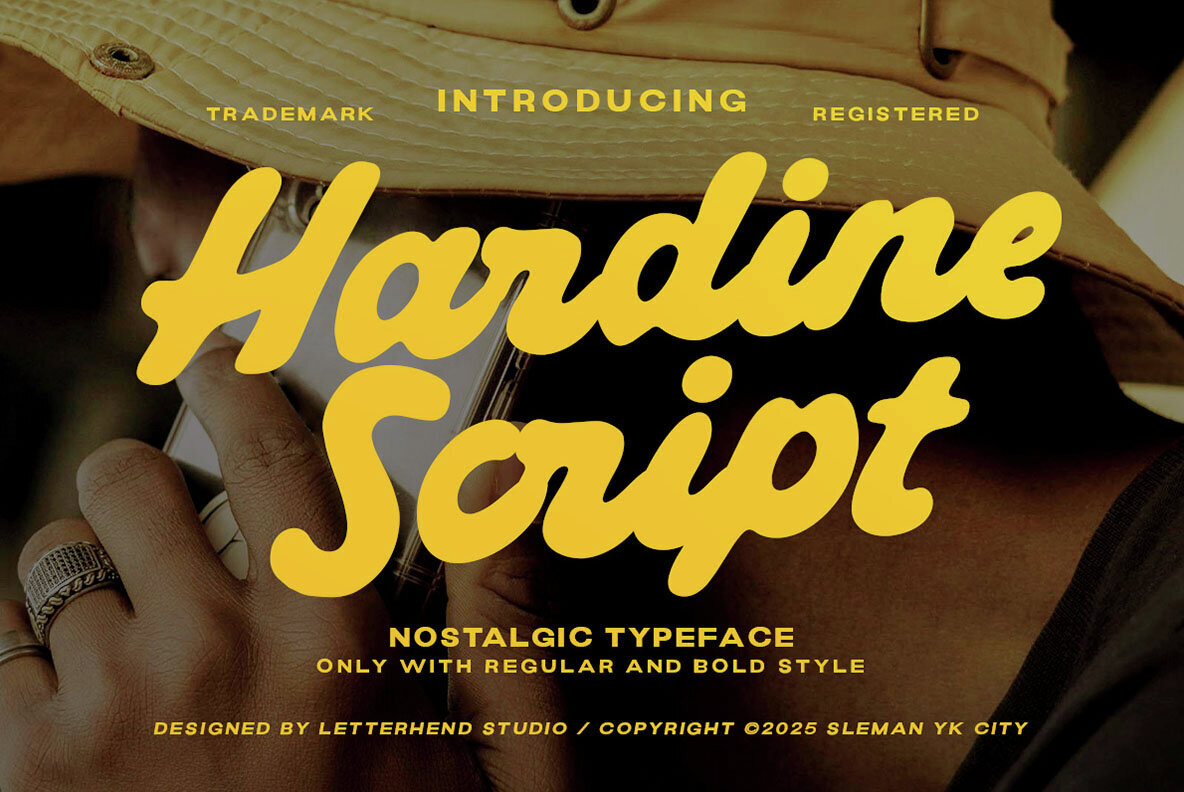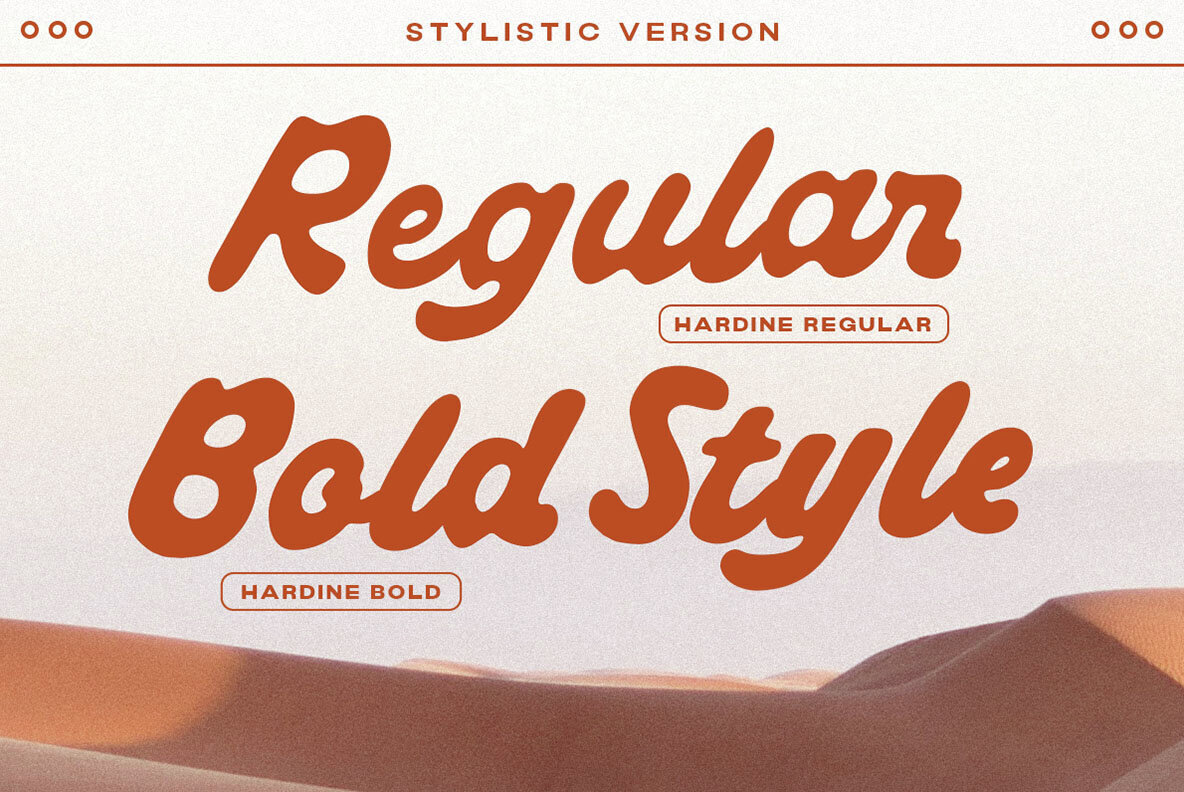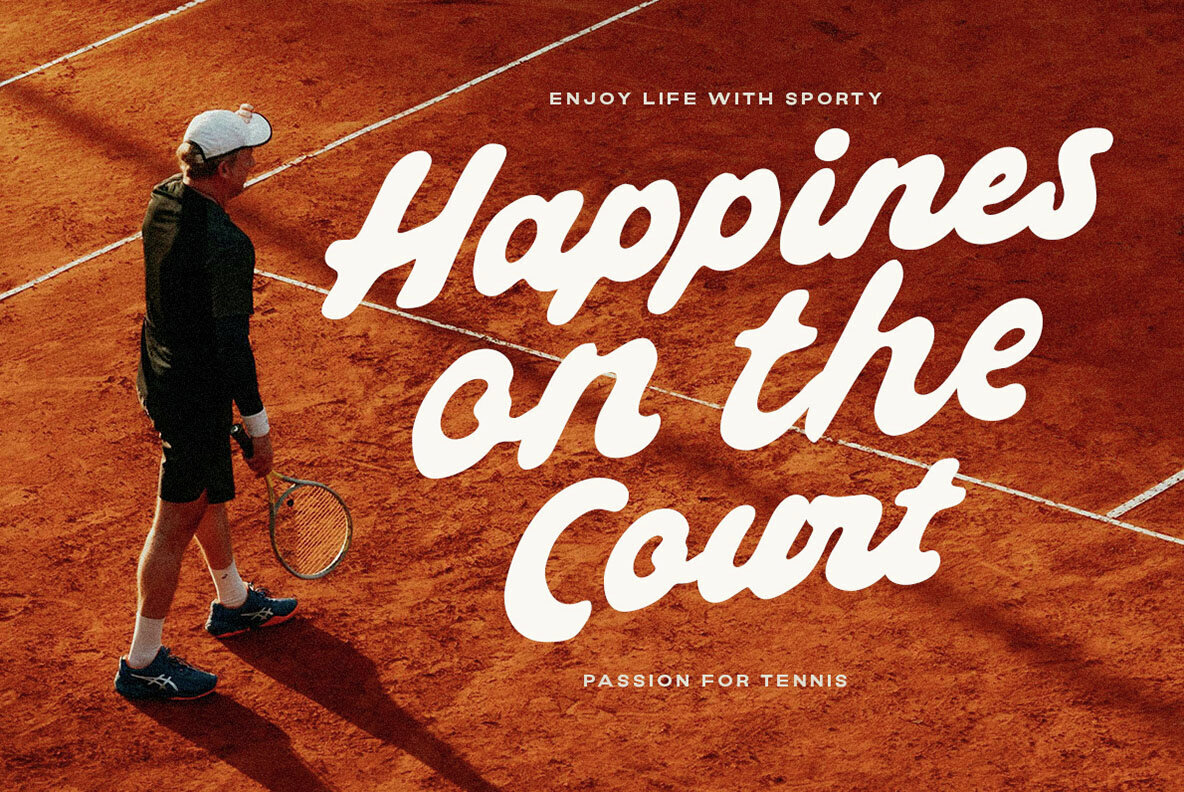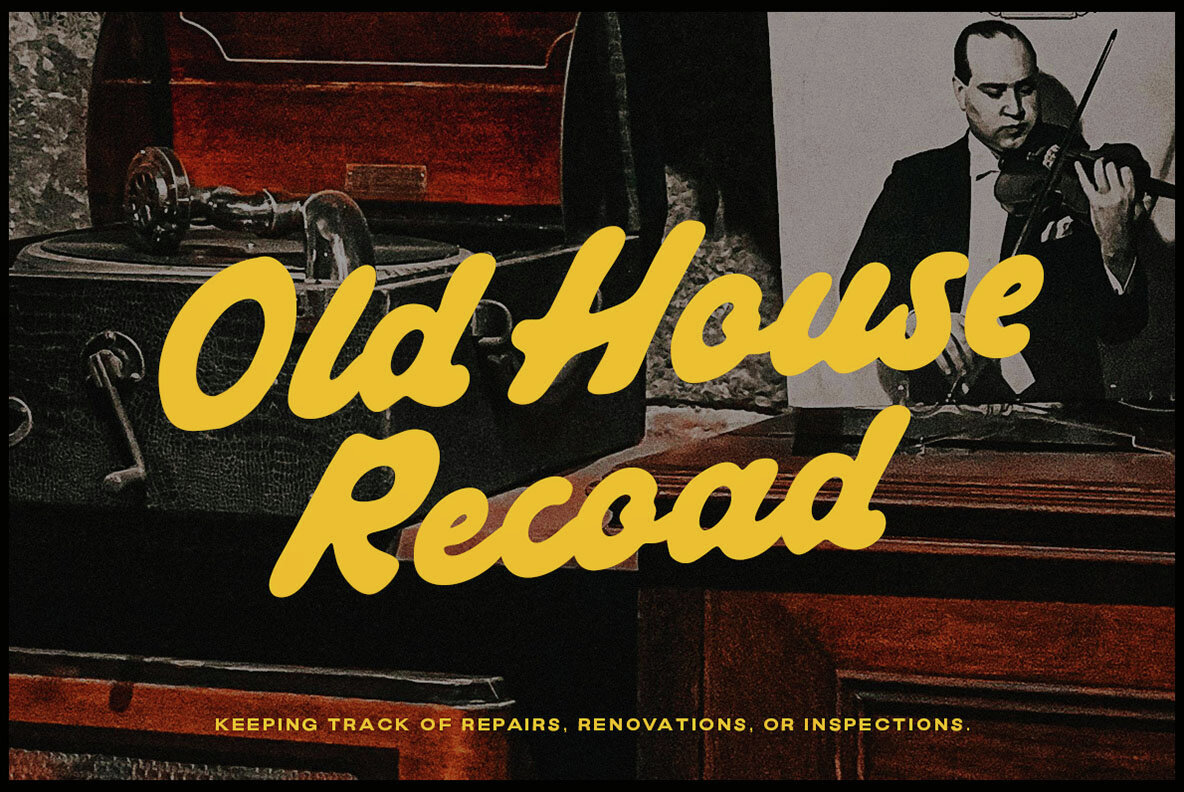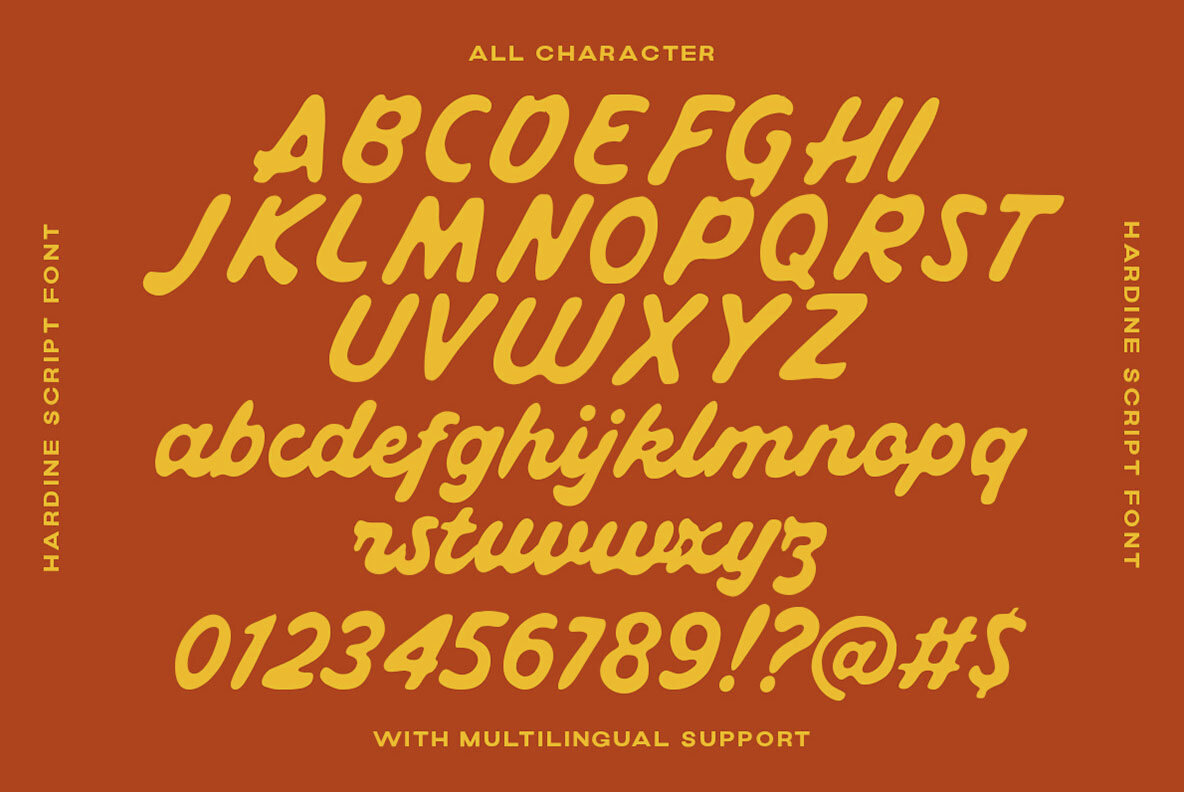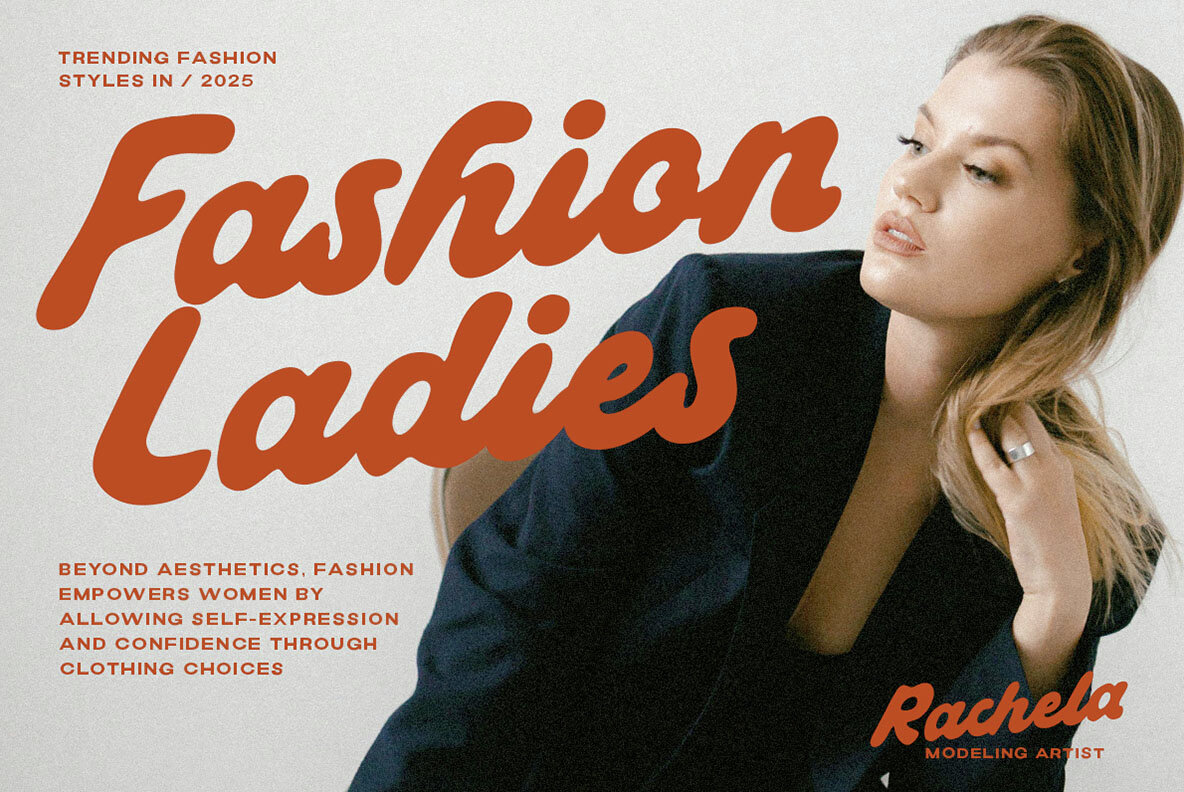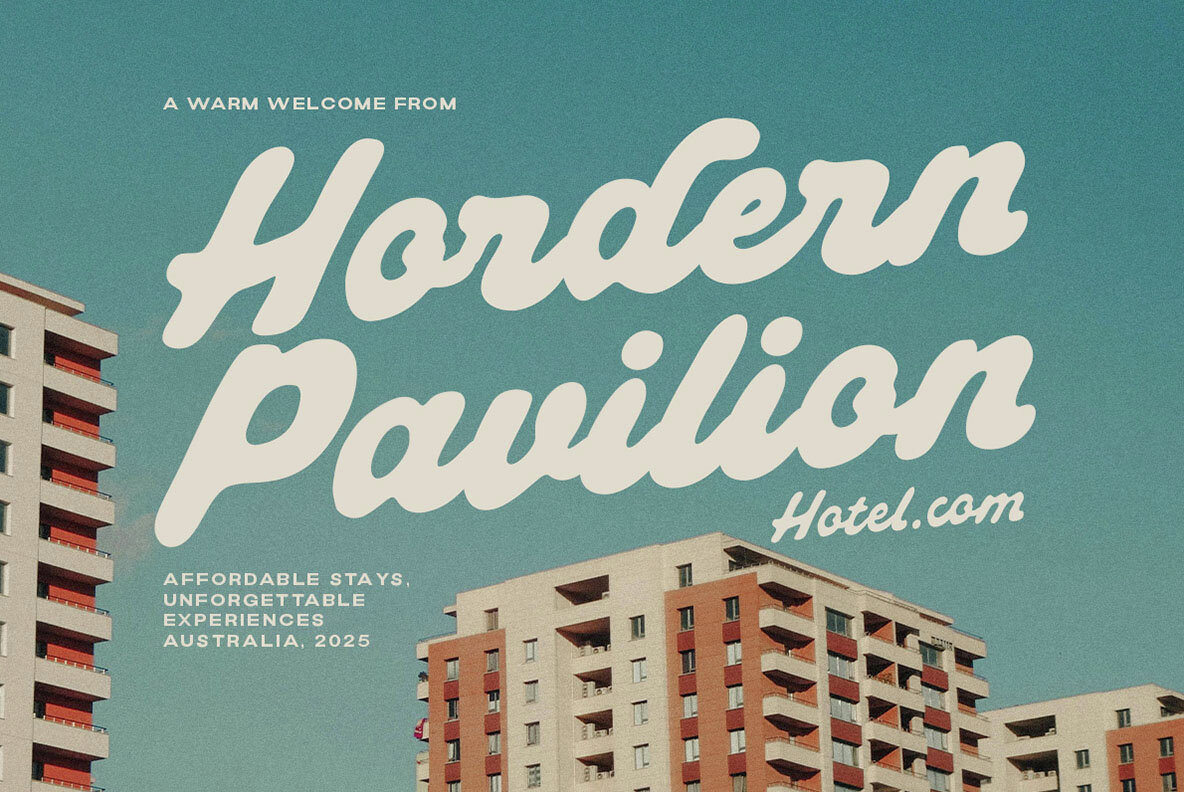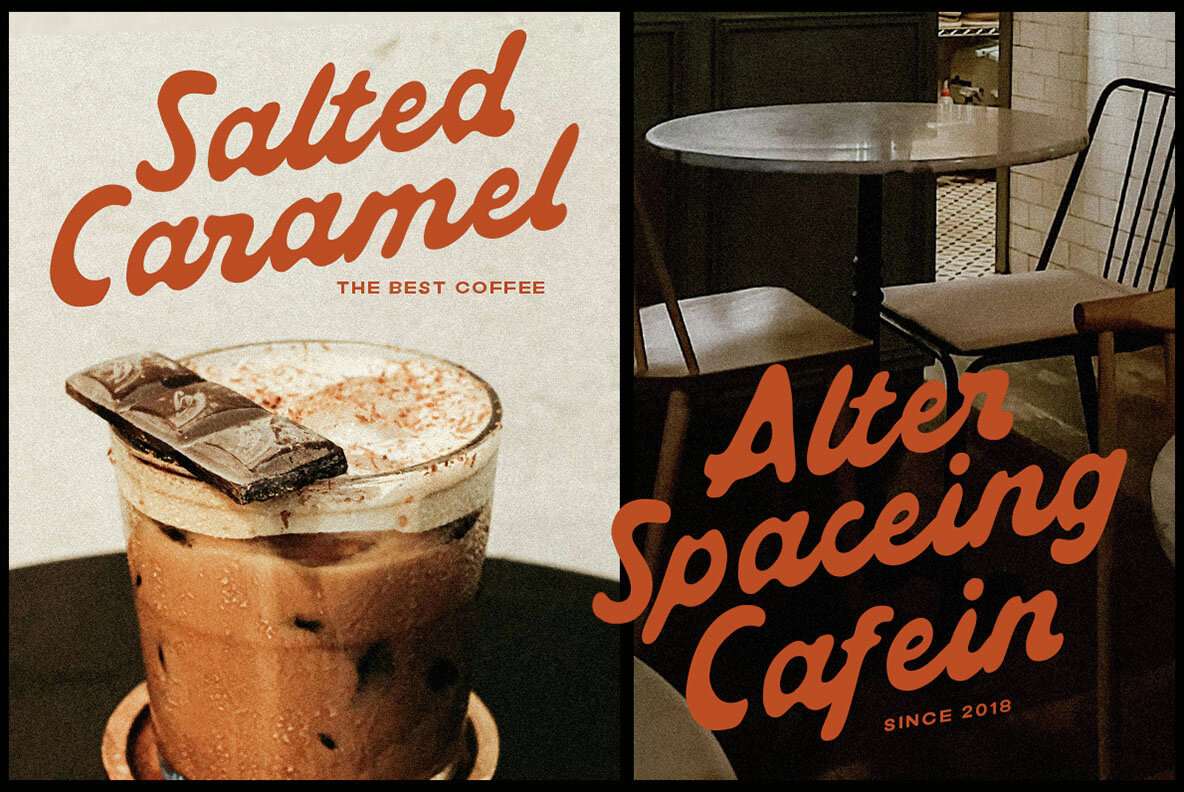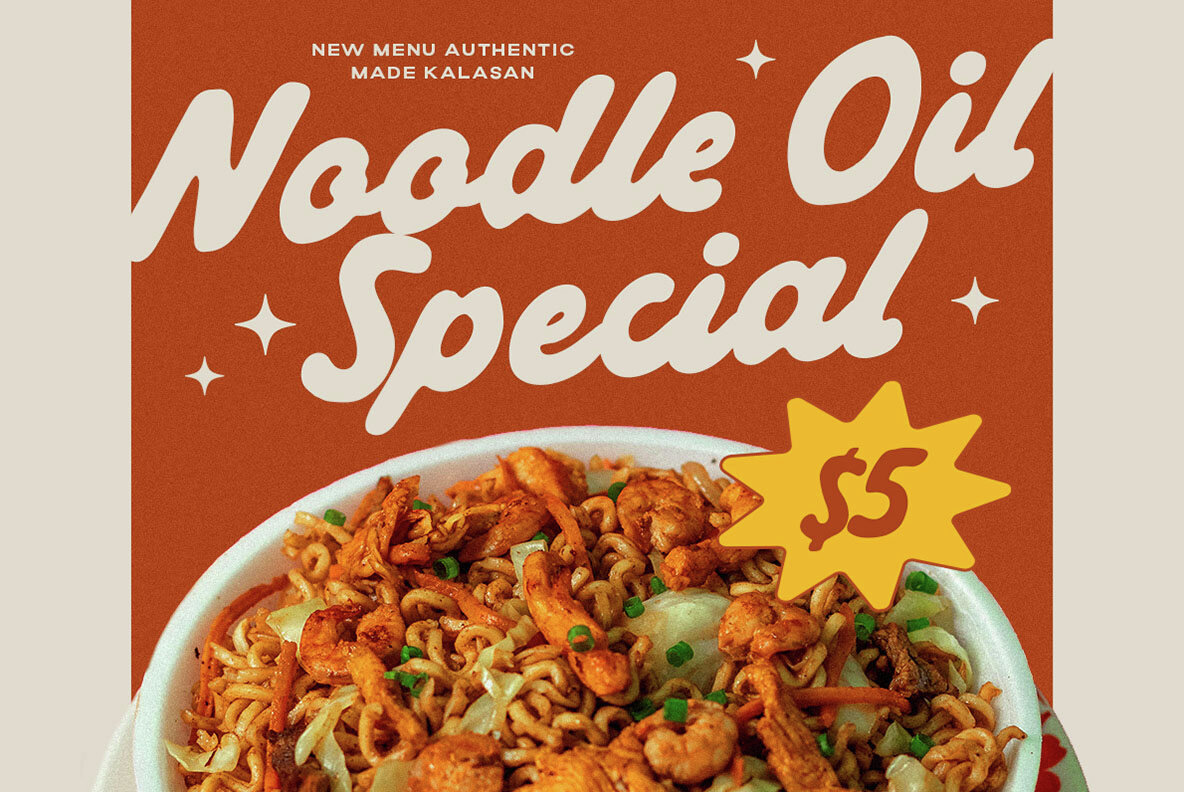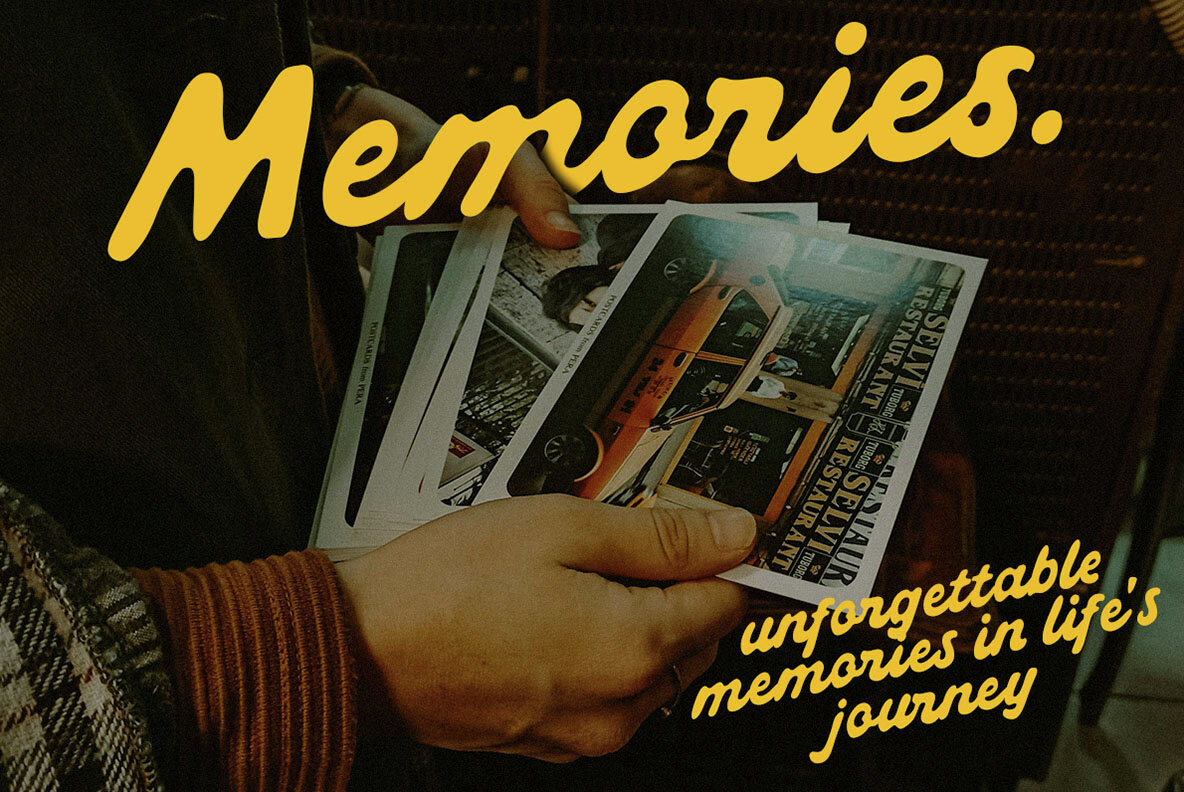
Hardine Font
Hardine Script is a bold and nostalgic typeface with a vintage charm and modern versatility, perfect for branding, posters, apparel, and retro-inspired designs. Its smooth curves and strong letterforms bring a warm, handcrafted feel while maintaining a dynamic, expressive look. Ideal for projects that need a mix of confidence and personality. Features: We highly recommend using a program that supports OpenType features and Glyphs panels like many of Adobe apps and Corel Draw, so you can see and access all Glyph variations.